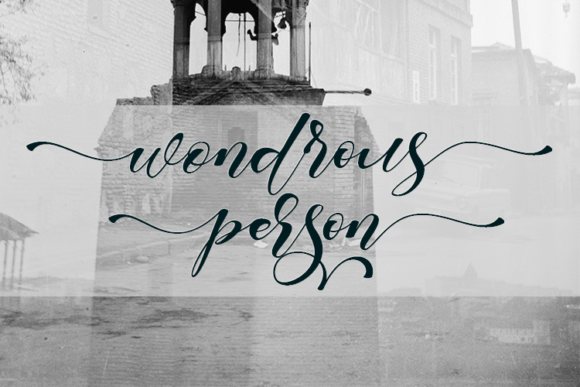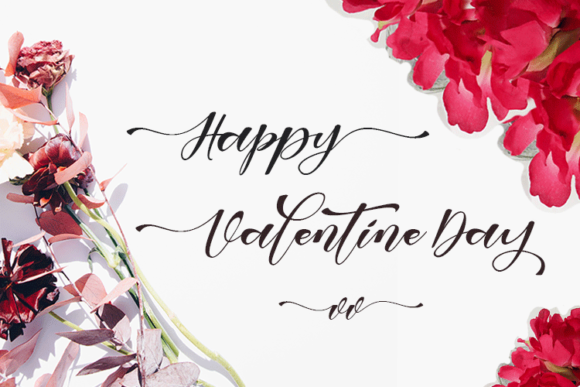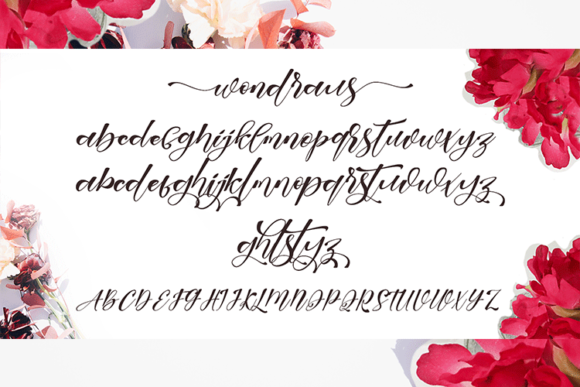
About Wondrous Font
Wondrous is an exquisite and sophisticated handwritten font that exudes a sense of uniqueness and elegance. Its beautiful and delicate letterforms make it a perfect choice for a wide range of design projects that require a personalized touch.
The font’s graceful and flowing appearance adds a touch of charm and refinement to any design. Its intricate and intricate strokes create a captivating and visually stunning experience that captures the eye. The elegant and stylish nature of Wondrous ensures that your message is conveyed with grace and sophistication.
Whether used in print or digital media, Wondrous shines in a variety of applications. From wedding invitations and thank-you cards to greeting cards and logos, the font adds a touch of sophistication and class to the designs.
Wondrous’s versatility allows it to be used in various contexts, making it suitable for both formal and informal occasions. Its elegant and timeless appeal makes it a popular choice for projects aiming to evoke a sense of luxury and exclusivity.
With its personalized style, Wondrous allows you to create designs that feel uniquely tailored to the individual or occasion. Its ability to convey emotion and sentimentality makes it an ideal choice for projects that require a heartfelt and personalized touch.
The font’s fine details and intricacies give it a sense of craftsmanship and artistry, making it stand out from more generic handwritten fonts. Its attention to detail and refined aesthetics make it a favorite among designers who seek to create elegant and visually striking designs.
Wondrous’s elegant and sophisticated style sets it apart from standard script fonts, making it a standout choice for those looking to elevate their designs to a higher level of elegance and beauty.
In summary, Wondrous is an exquisite and elegant handwritten font that adds a touch of sophistication and charm to any design. Its personalized style, versatility, and refined aesthetics make it a perfect choice for a wide range of design projects, from wedding invitations to logos. Embrace the beauty of Wondrous and use it to create stunning and captivating designs that leave a lasting impression on your audience.